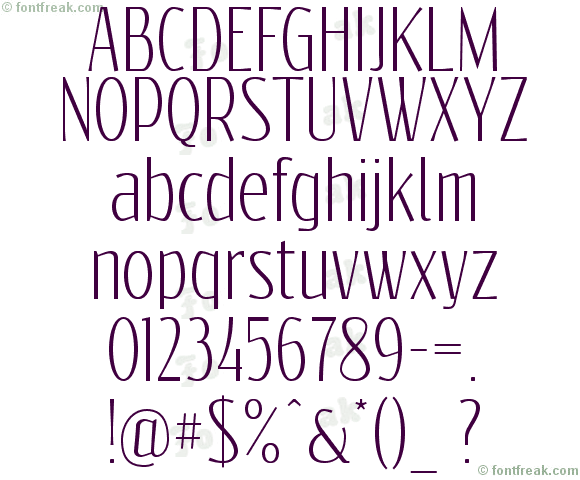
Reswysokr
About Reswysokr
The Reswysokr font, created by Grzegorz L., is a striking display typeface that catches the eye with its unique character. As a sans-serif font, it features clean lines and a modern aesthetic, making it an excellent choice for a variety of design projects. The stroke weight is moderately consistent, providing a balanced appearance that is both elegant and approachable. The spacing between characters is well-considered, ensuring readability while maintaining a contemporary feel.
Reswysokr is particularly well-suited for use in wedding invitations, where its stylish yet legible design can add a touch of sophistication. Additionally, it shines in movie posters, effectively capturing attention and conveying the theme of the film. Restaurant menus can benefit from its clean look, enhancing the overall dining experience by presenting the menu items in an aesthetically pleasing manner. This font is also perfect for branding projects, allowing small business owners to create memorable logos that stand out in a competitive market. Content creators will find it useful for social media graphics, as it combines clarity with a modern flair.